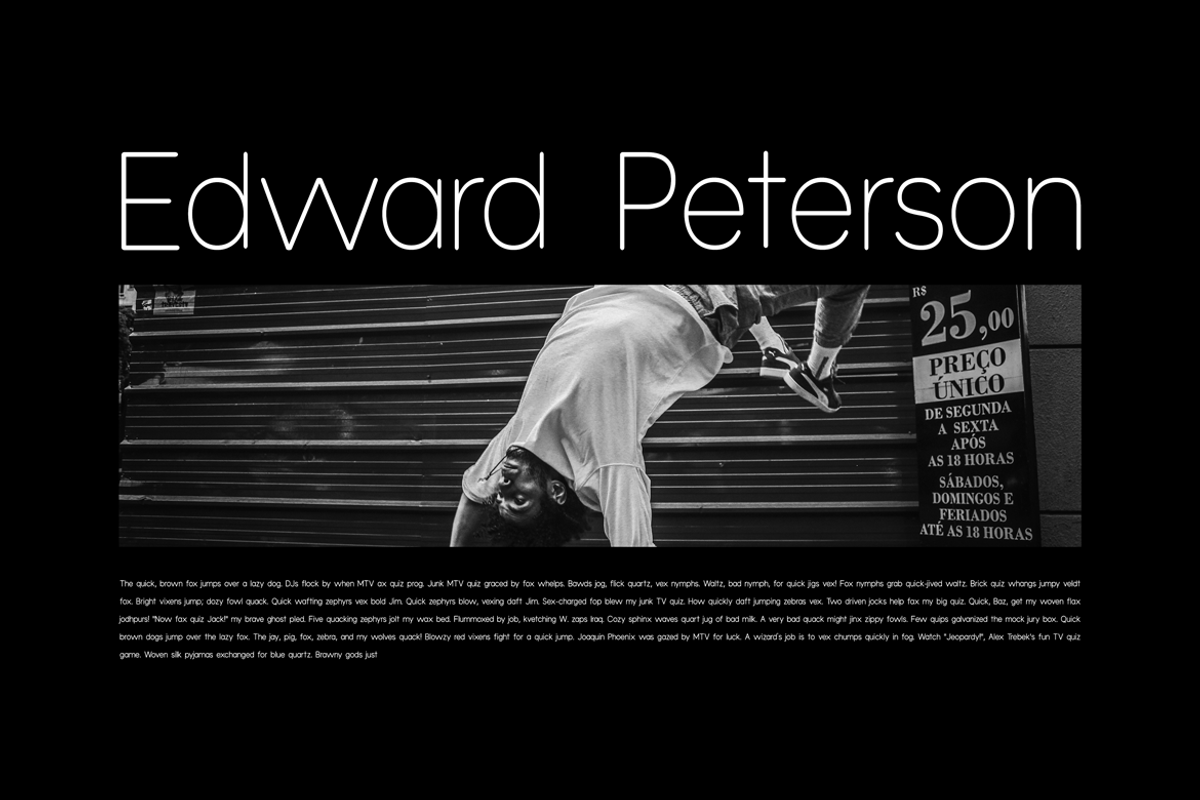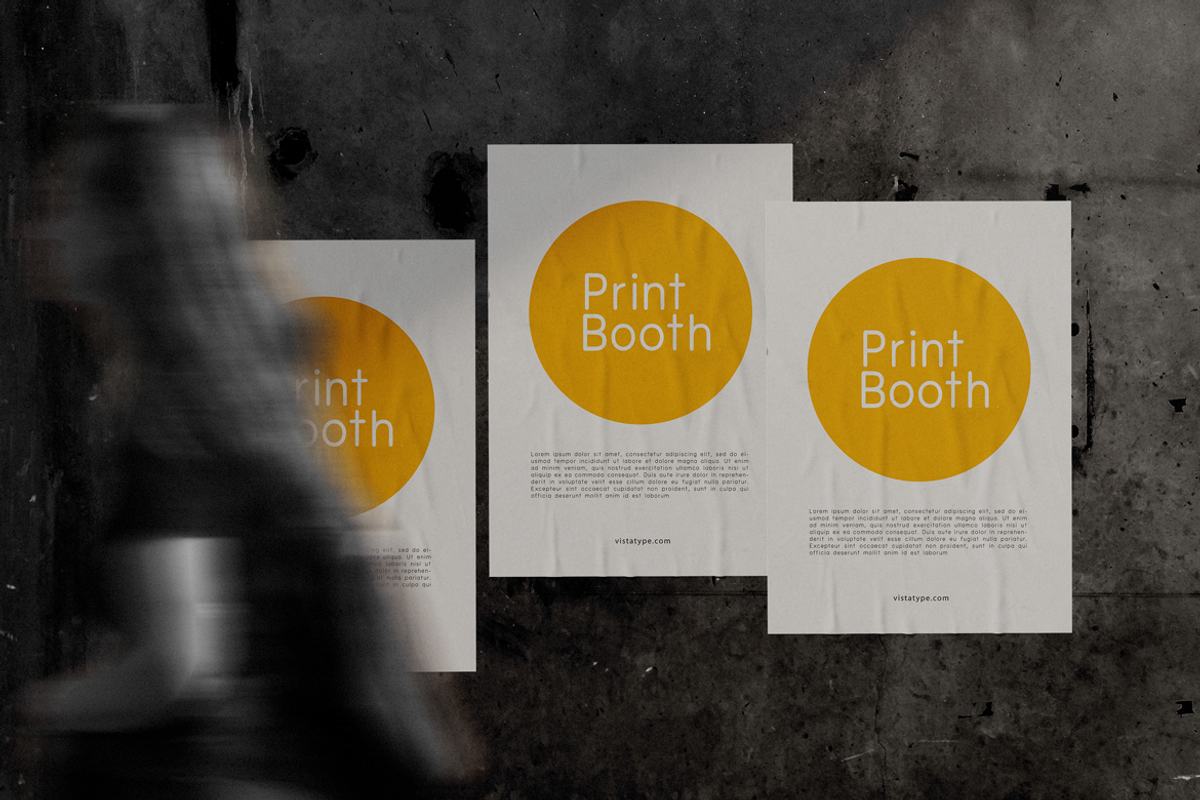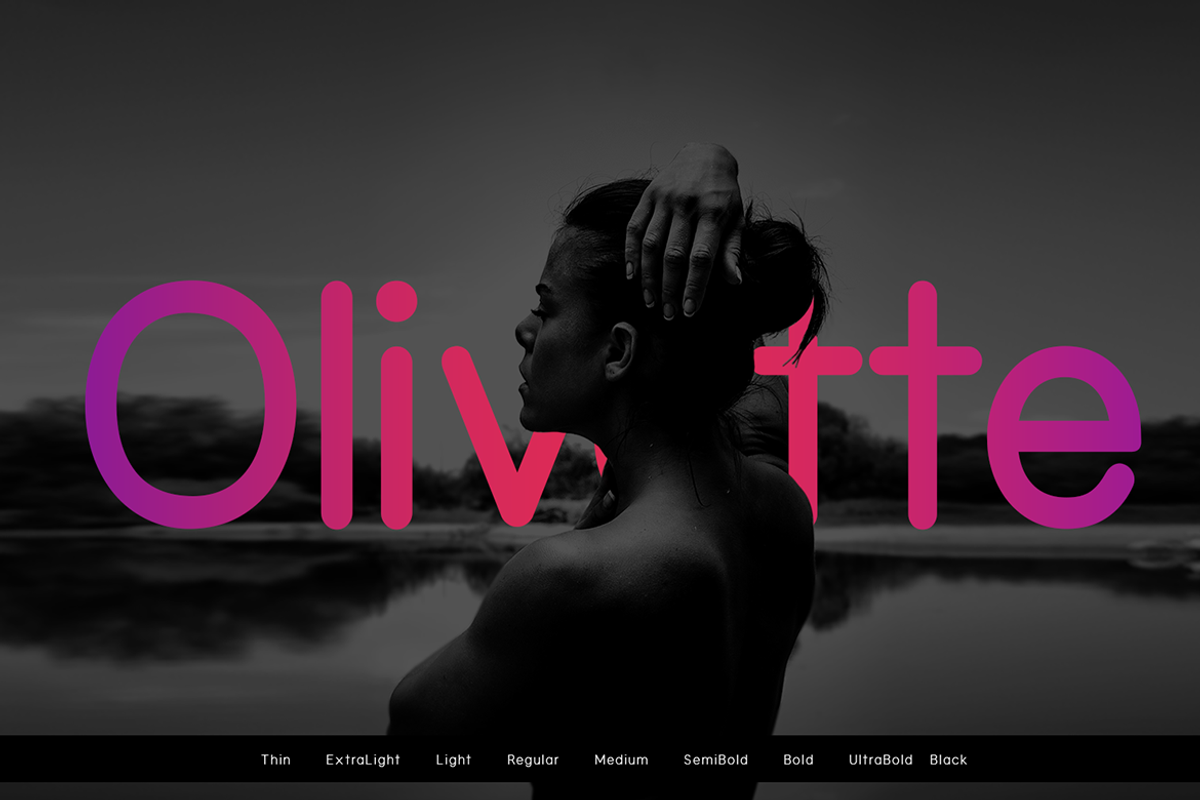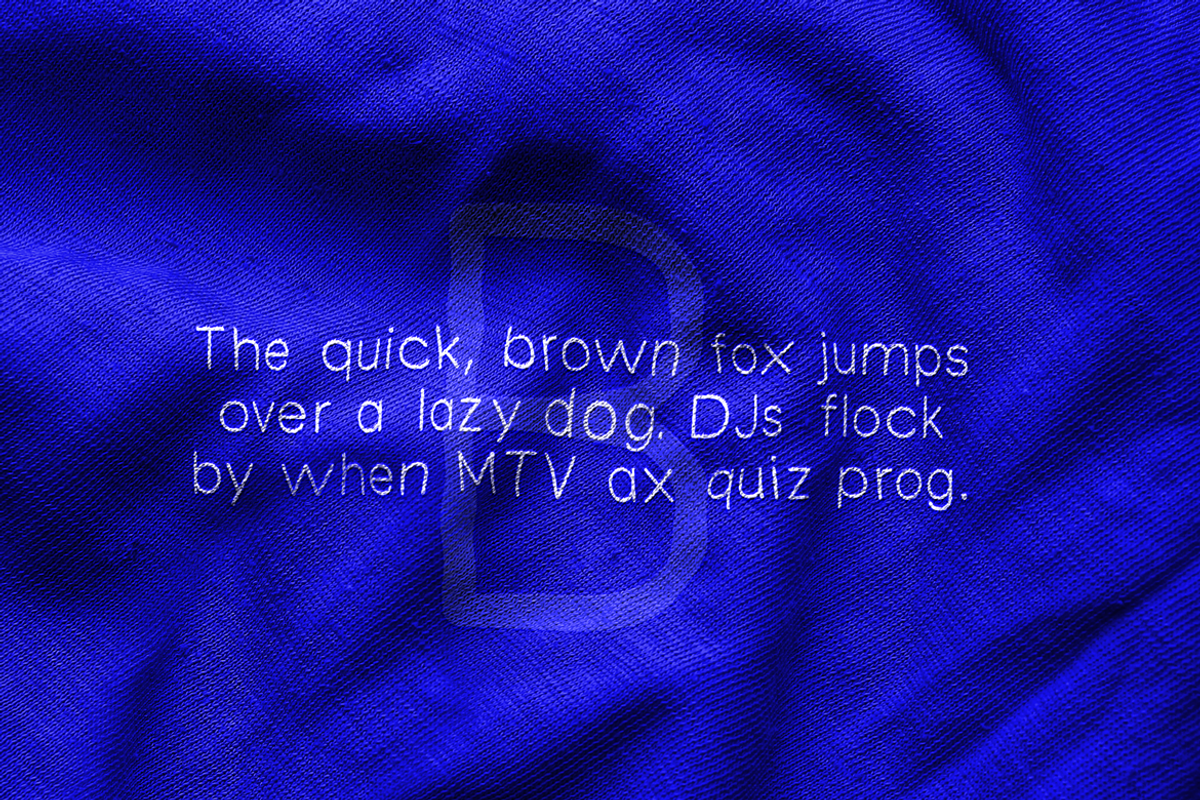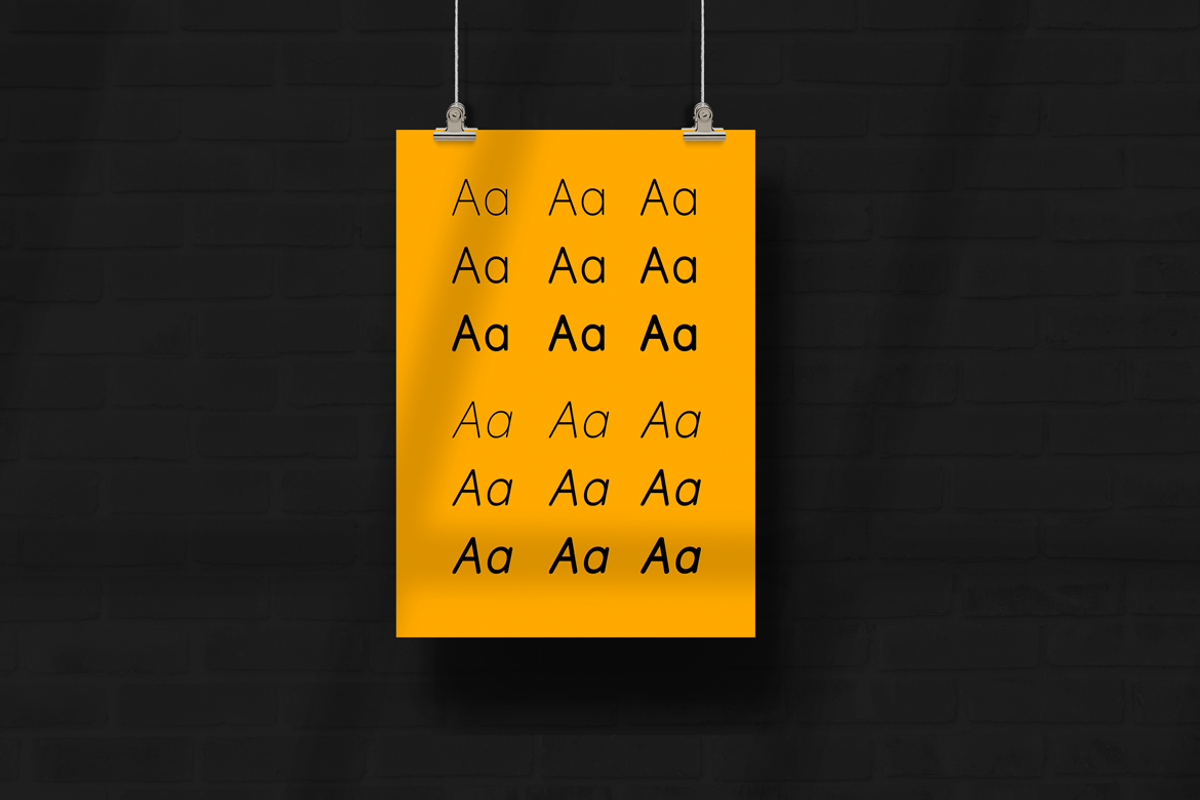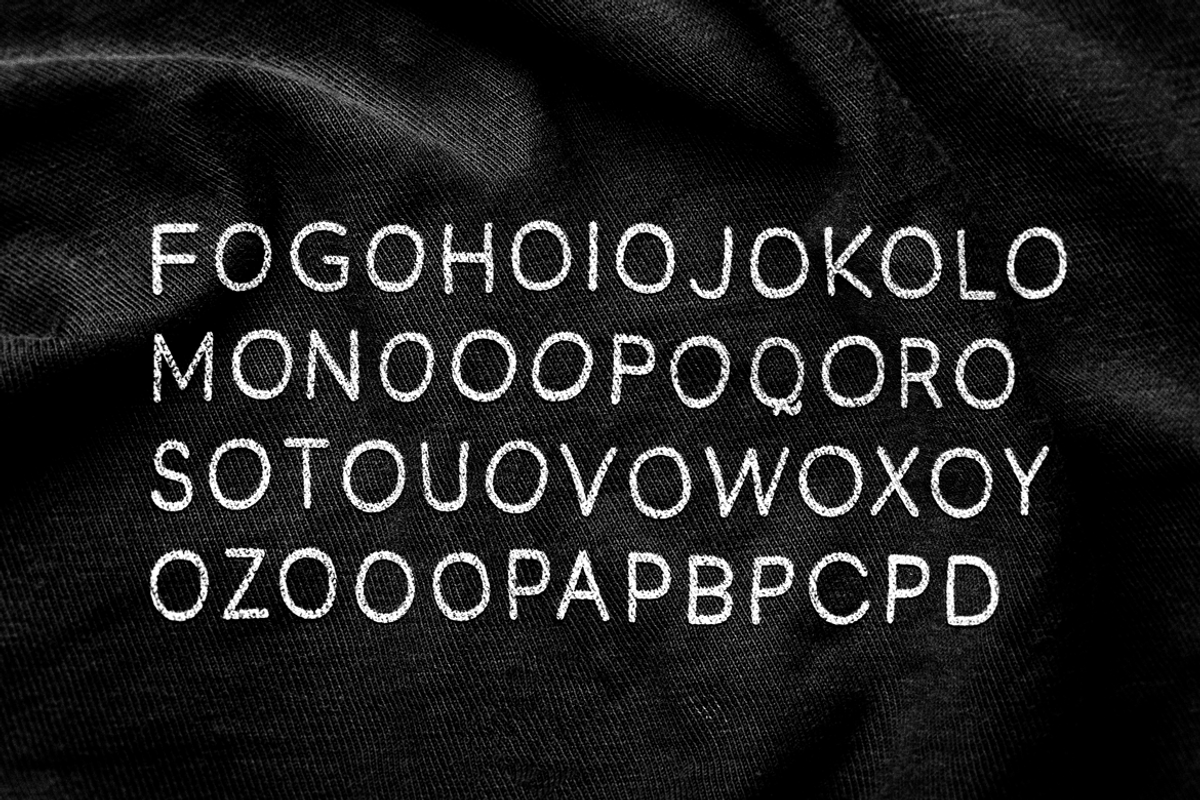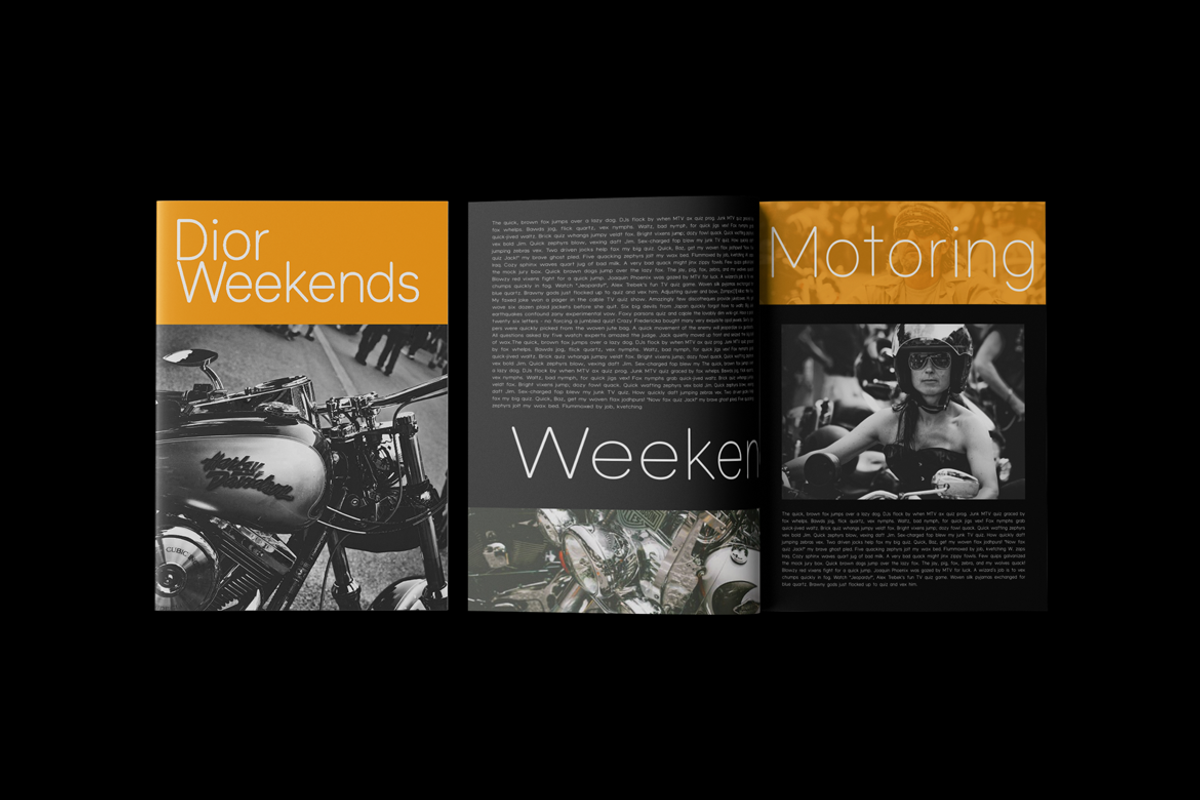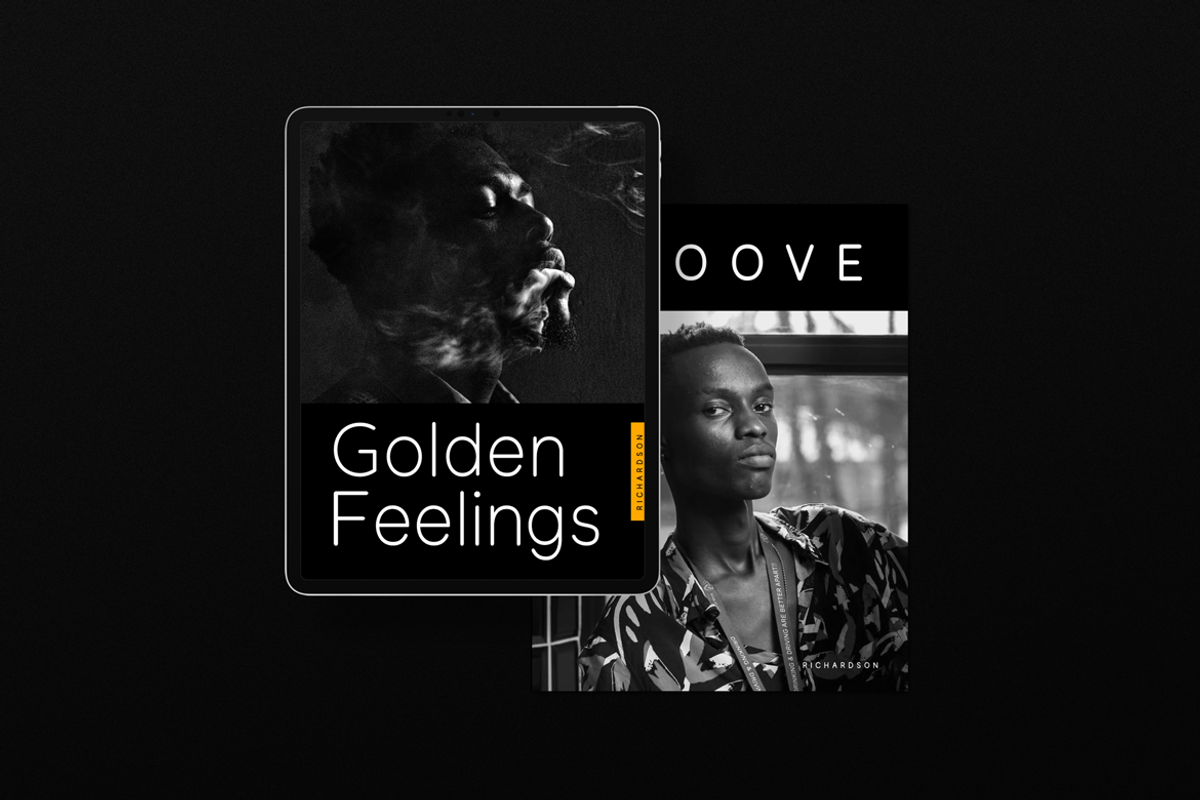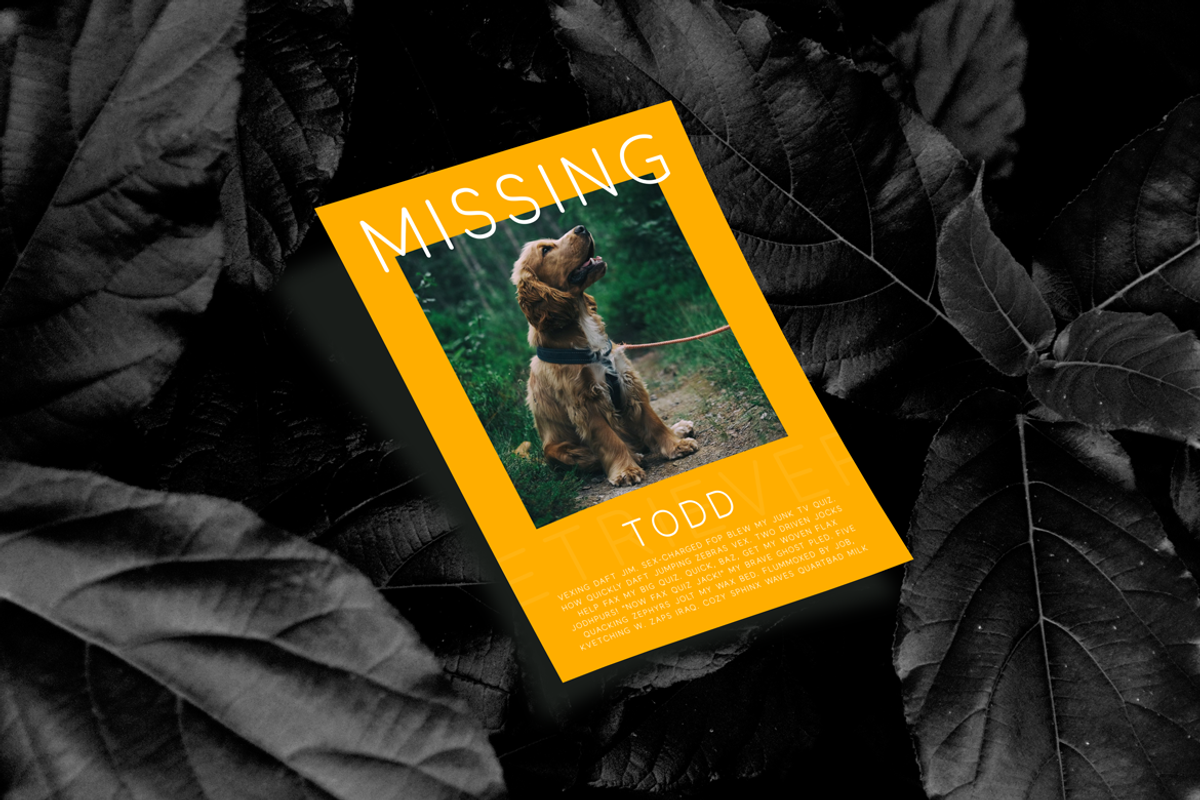
Olivette Sans
Introducing Olivette Sans. Olivette Sans is a modern and clean typeface, best used as a display for headings, logos, branding, magazines, product packaging, and invitations. Olivette Sans is created in 02 styles and 09 weights. It has 18 fonts including true italics.
Olivette Sans is perfectly suited for a wide variety of projects, such as signature, stationery, logo, wedding, typography quotes, magazine or book cover, website header, clothing, branding, packaging design, and more.